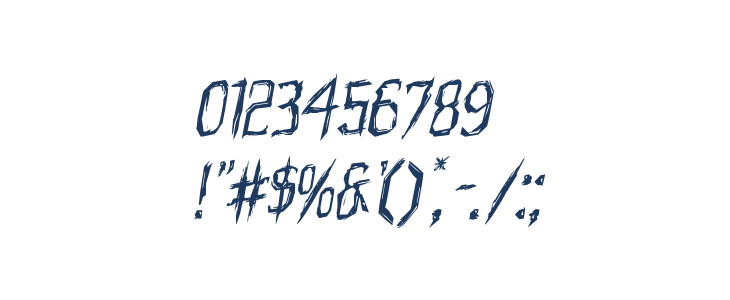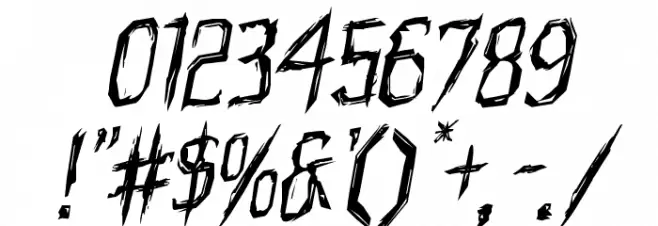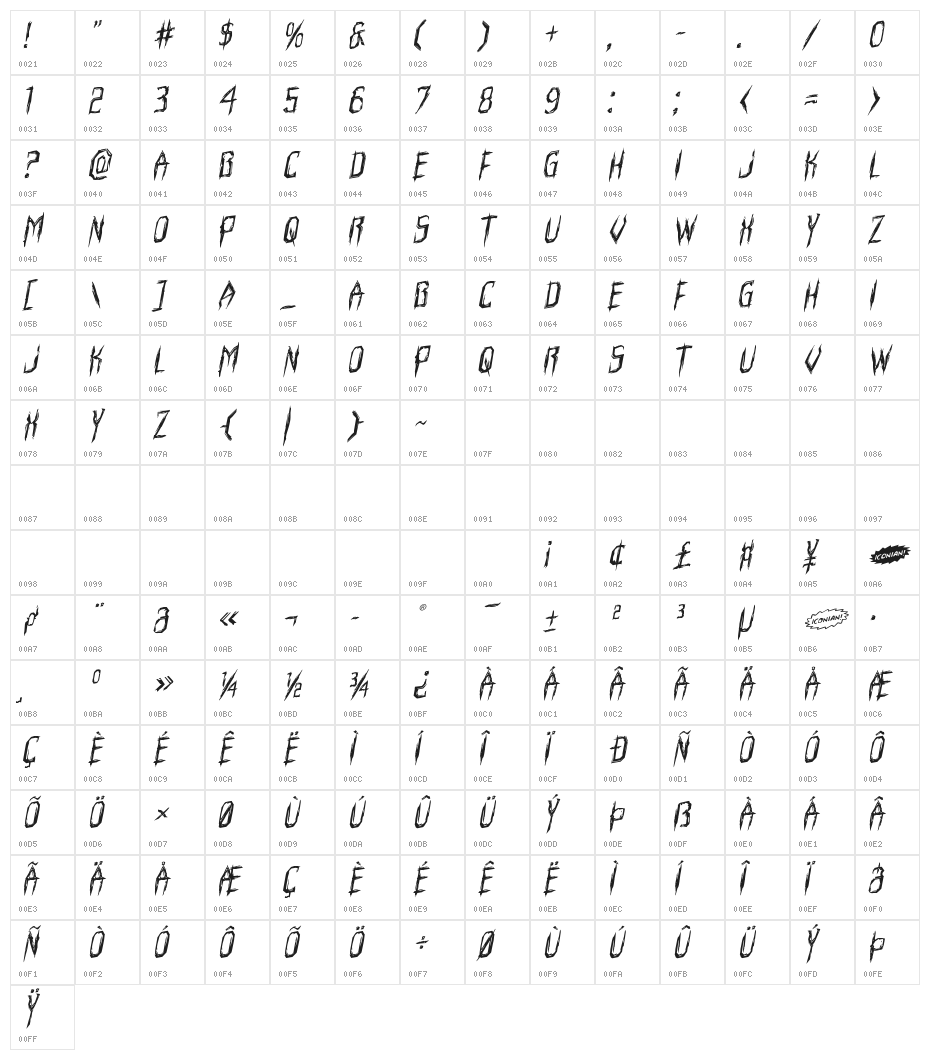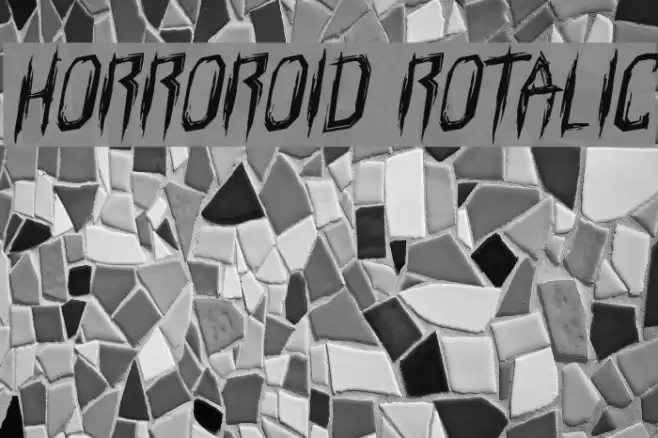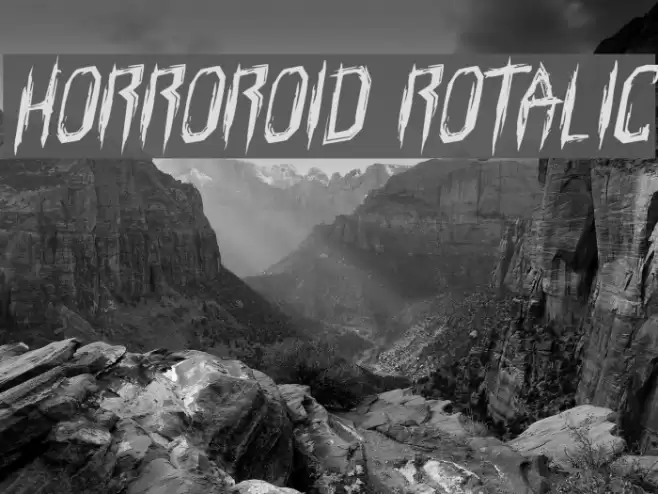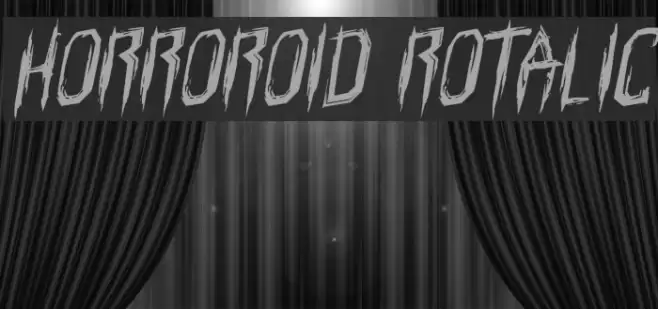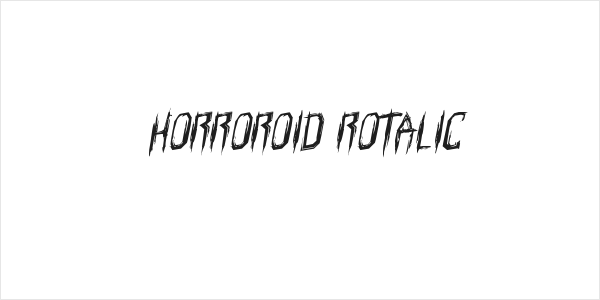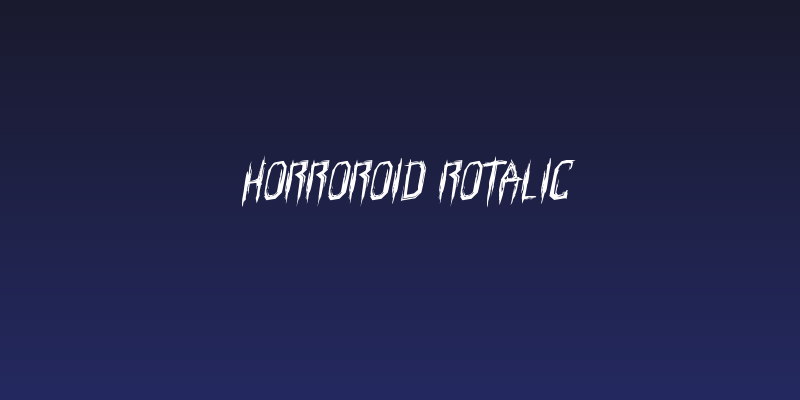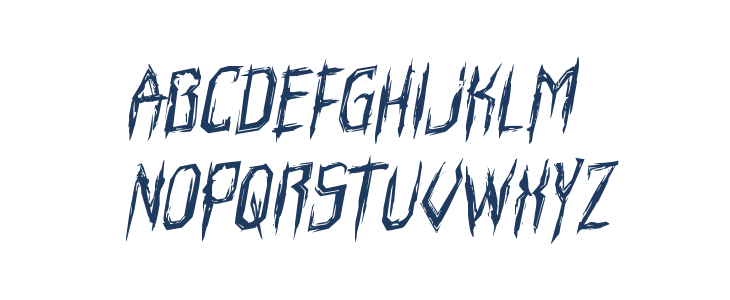
Horroroid Rotalic Font
Horroroid Rotalic Description
This font features a jagged, distressed appearance, reminiscent of horror themes. The characters are sharply angled with irregular edges, giving a sense of chaos and intensity. The uppercase and lowercase letters maintain a consistent style, with exaggerated spikes and uneven strokes that create a dynamic and unsettling visual impact. Numbers and special characters follow the same aesthetic, ensuring a cohesive look across all text elements. The font's unique style makes it ideal for projects that require a dramatic and eerie atmosphere.
| Proposed Projects | Ideal for horror movie posters, Halloween event flyers, spooky-themed merchandise, and video game titles. |